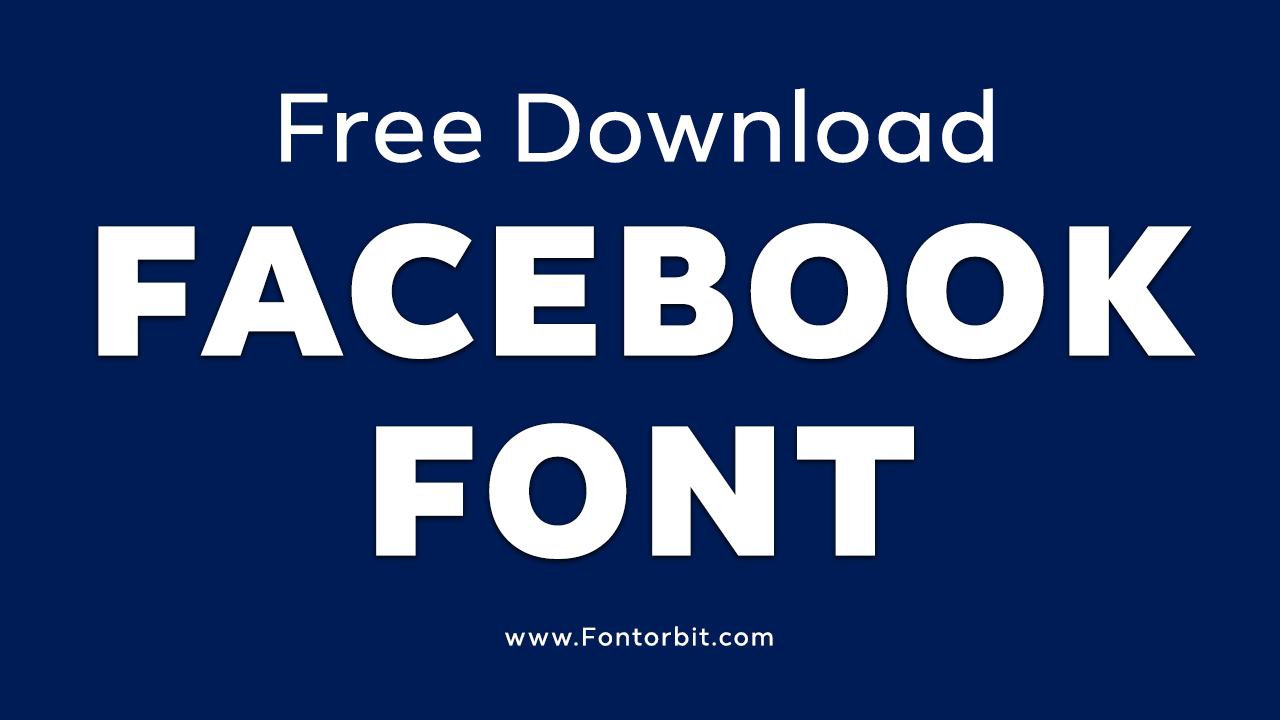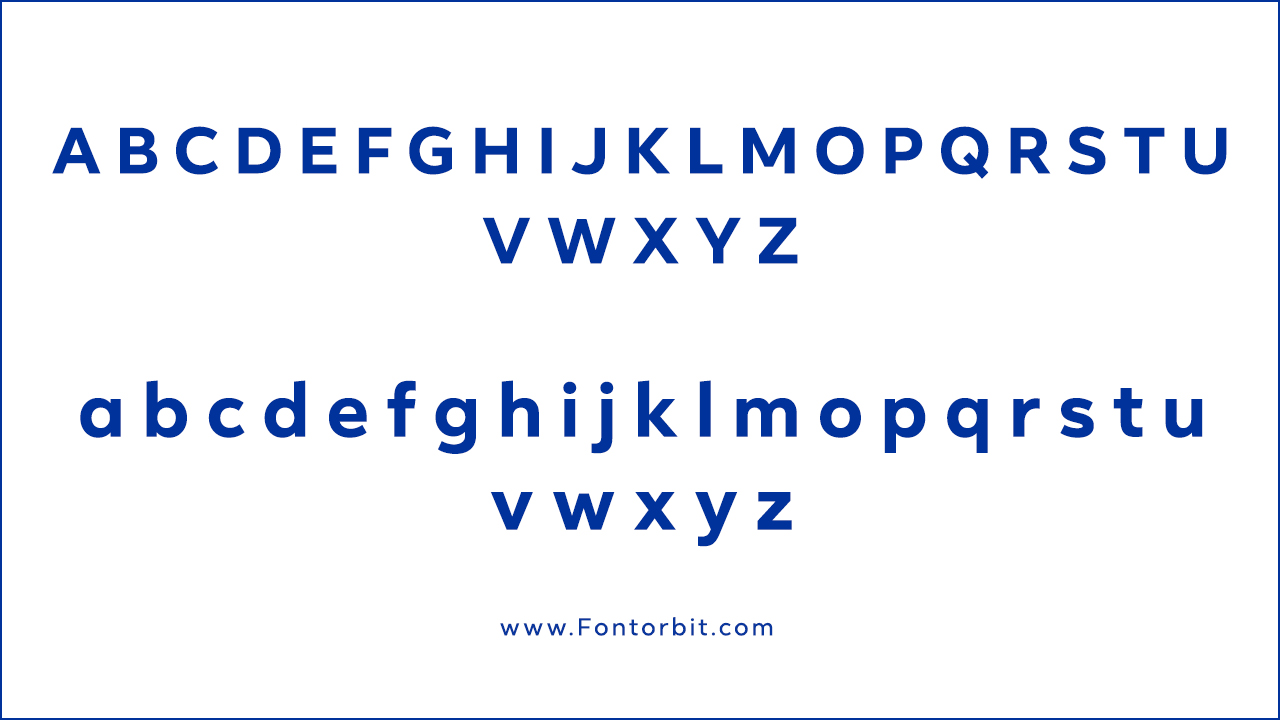
The Facebook Font, primarily based on Klavika Bold, is a custom typeface developed for Facebook’s branding. Designed by Joe Kral and refined by Dalton Maag, this font features clean, bold lines and a modern aesthetic that is instantly recognizable.
Klavika, created by Eric Olson, served as the foundation for Facebook’s custom font, which includes minor modifications for a unique logo appearance. However, for those seeking a similar style for their own projects, Sentico Sans DT offers a comparable look.
Sentico Sans DT is a font that resembles Facebook’s custom typeface and provides a similar modern and clean aesthetic. It offers a bold and versatile design suitable for a range of applications. It includes a comprehensive character set featuring uppercase and lowercase letters, numbers, and punctuation marks.
Sentico Sans DT is ideal for use in digital and print media where a modern, bold look is desired. Its design closely mirrors the Facebook Font, making it perfect for projects that require a similar clean and impactful appearance. From brand identity to marketing materials, Sentico Sans DT delivers a professional and contemporary feel.
Sentico Sans DT is an excellent alternative to the Facebook Font, offering a similar modern and bold style suitable for a range of design applications. Its clean lines and professional appearance make it a versatile choice for branding and digital projects.
1.What Is The Name Of The Font Used For The Wordmark Of Facebook?
The font used for Facebook’s wordmark is a custom version of Klavika Bold, modified for their logo.
2.Which Font Did Facebook Use On Its New Company Brand In 2019?
In 2019, Facebook introduced a new custom font called “Facebook,” based on Klavika and designed by Dalton Maag.
5.What Font Did Facebook Use On Your Logo?
Facebook’s logo uses a custom-modified version of Klavika Bold.
7.What Are The Color Options For Sentico Sans DT?
Sentico Sans DT works well with high-contrast colors for a striking appearance, as well as softer tones for a more refined, professional look.